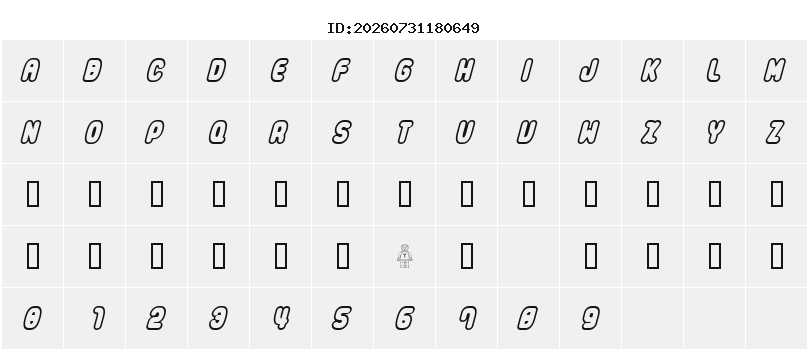
About Legothick.ttf
Legothick.ttf is a modern, elegant sans-serif font designed for ultimate readability and visual harmony. Perfect for branding, headlines, web design, and print materials.